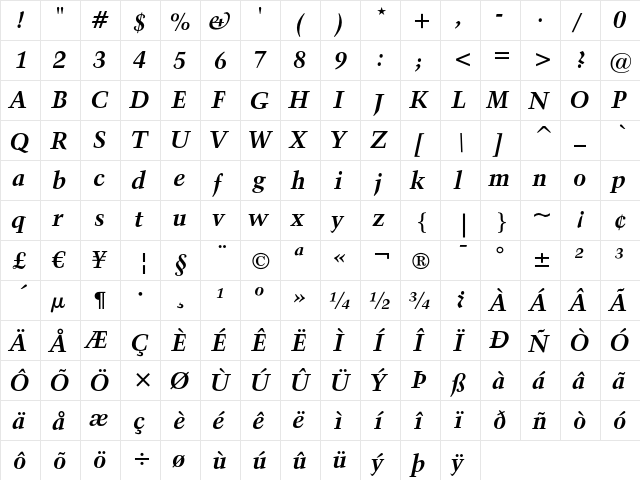
Kuenstler 480 Bold Italic Font Preview
Kuenstler 480 Bold Italic
Kuenstler 480 Bold Italic Font Details
Design Context for Kuenstler 480 Typeface
Kuenstler 480 is a composed and adaptable typeface that performs quietly and consistently across a wide range of design contexts. Its italic angle brings a sense of urgency and motion to the letterforms. The heavy weight commands attention and anchors typographic hierarchies.
Pro Tip: Use Kuenstler 480 for emphasis, pull quotes, and subheadings where its slanted energy can add rhythm to the layout.